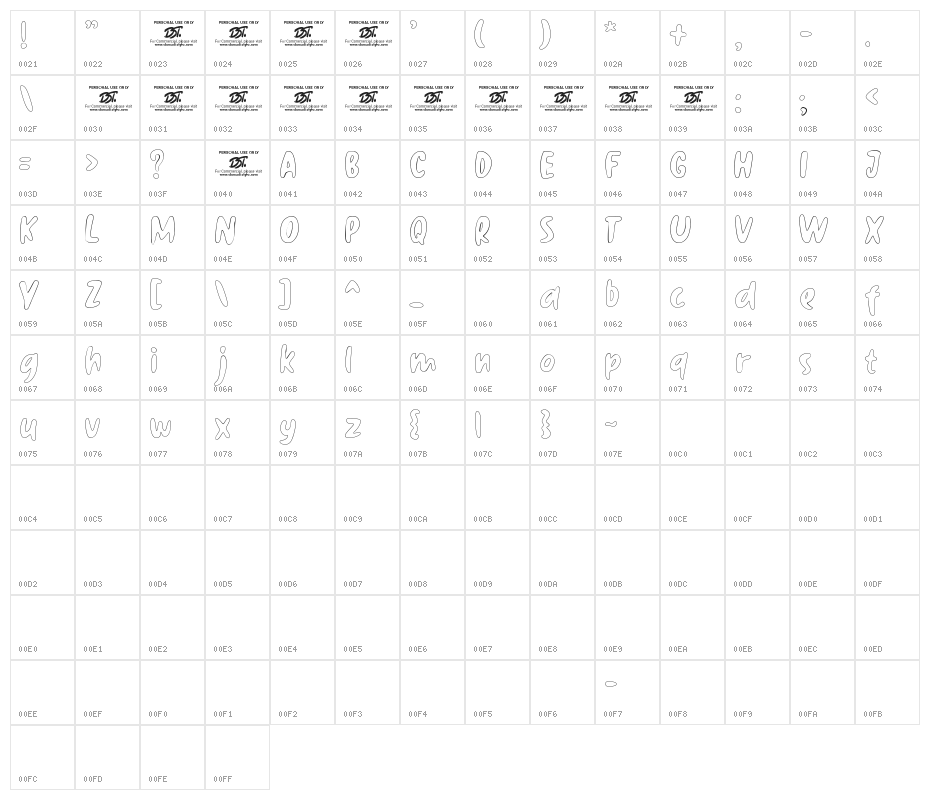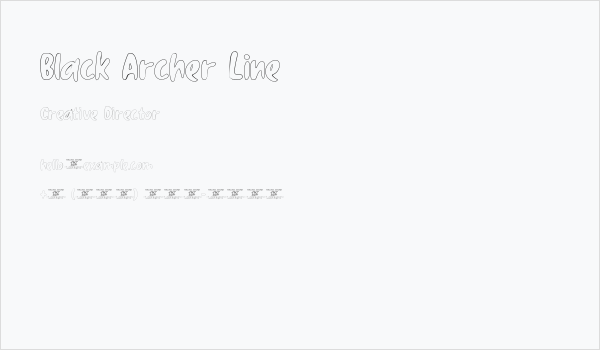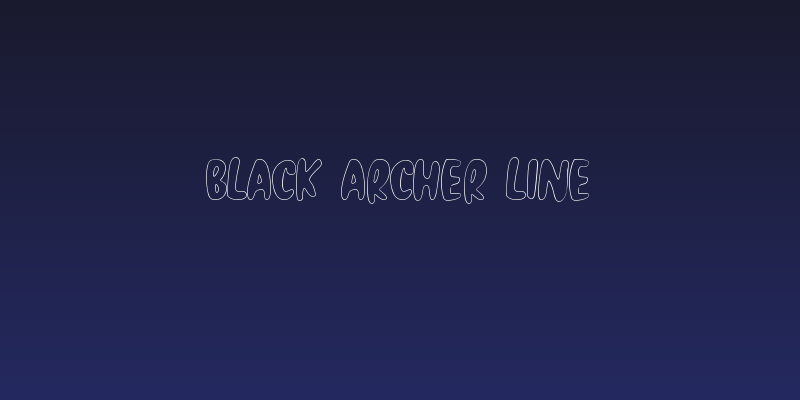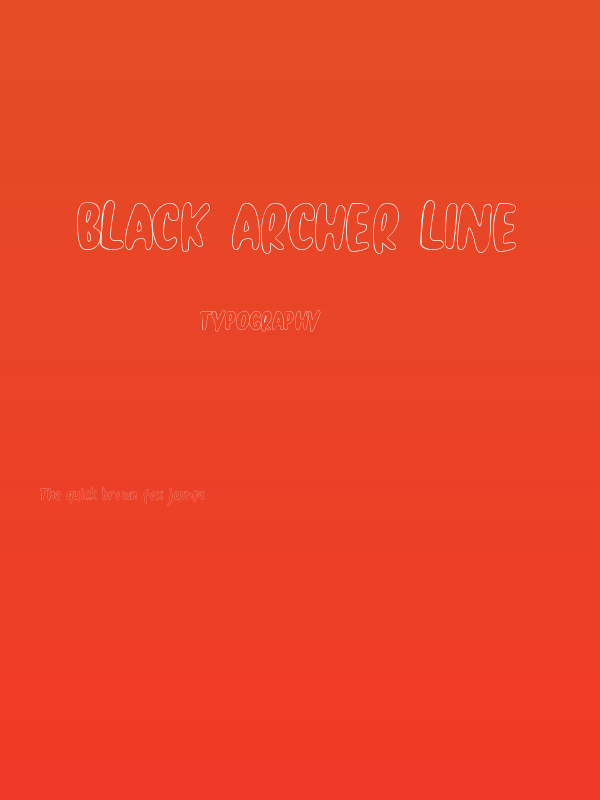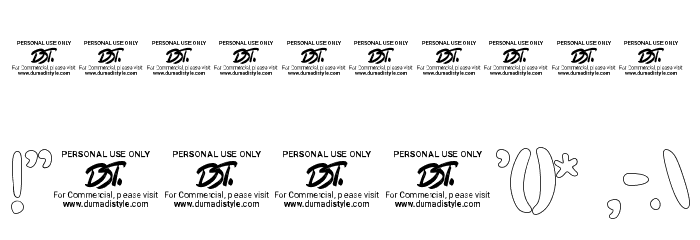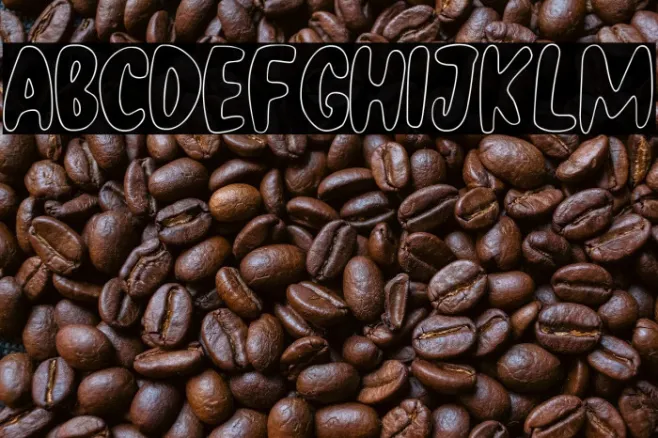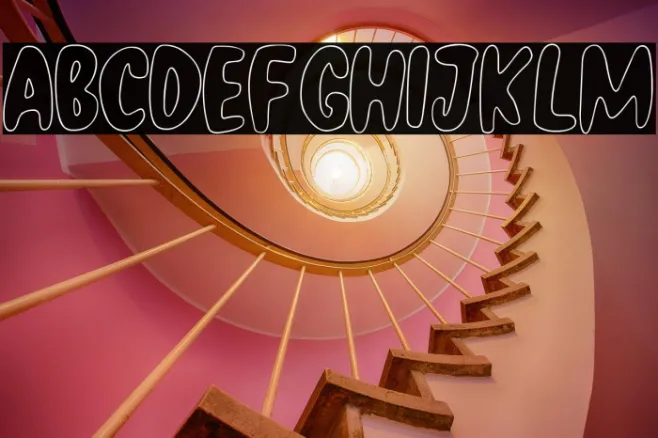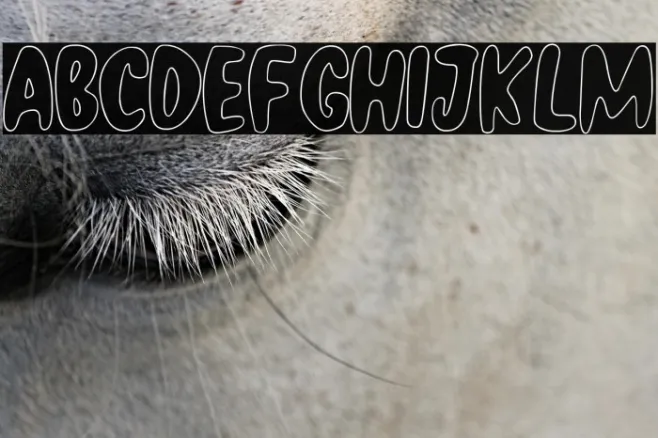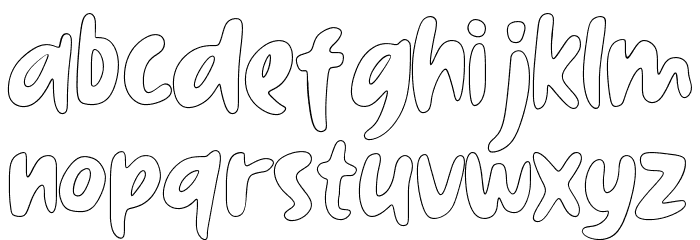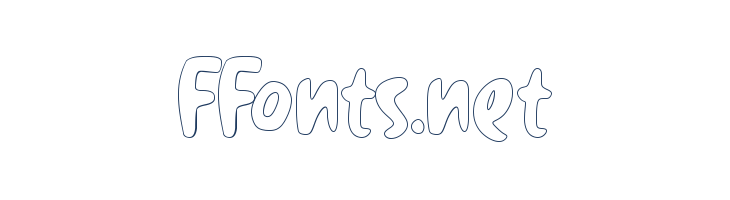
Black Archer Line Font
Black Archer Line Description
This playful and bold font features a hand-drawn, bubble-like style with rounded edges and a whimsical appearance. The letters are thick and have a consistent stroke width, giving them a friendly and approachable look. The uppercase and lowercase characters maintain a uniform style, with a slightly exaggerated form that adds to the font's charm. The numbers and special characters are designed to match the overall aesthetic, making this font suitable for a variety of creative projects.